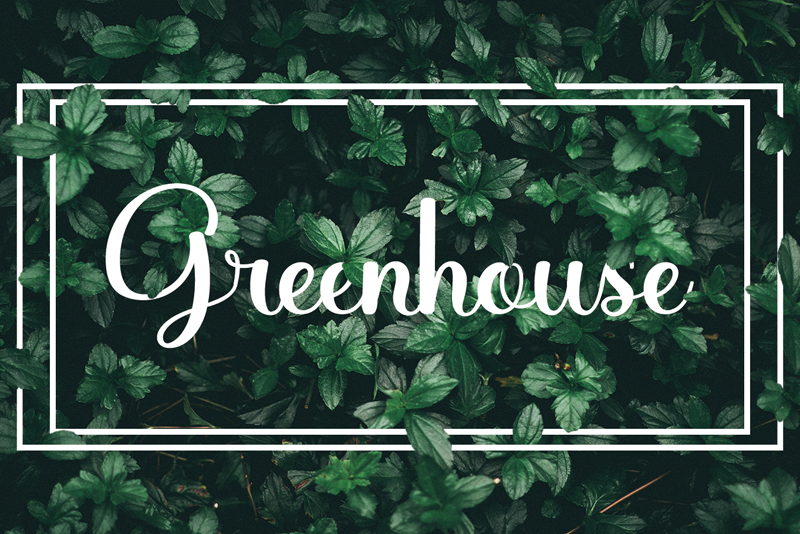
Preview and download Greenhouse Font. Created by Luluk Surotul in Script Handwritten styles with Free for personal use license.
Greenhouse is a lovely and round-lettered handwritten font. It is the best choice for creating eye catching logos, branding and quotes. Every letter has a unique and beautiful touch, which will make your design come alive! Attention : Greenhouse handwriting Font is prohibited to use this font for commercial purposes or for profit without the permission of the author/admin, without being known to use this font without permission, will be subject to sanctions 5x the specified price. This font is used only for demos (Demo license) If you want to use this font for commercial use please contact email: elllulukstudio123@gmail.com or click the link below: https://www.creativefabrica.com/product/greenhouse-9/ref/761303/ If you want to see more other fonts, please click: https://www.creativefabrica.com/designer/el_hotcig/ref/761303/ Any donations are very appreciated. Paypal account for donation: https://www.paypal.com/paypalme/luluk783 thanks. |